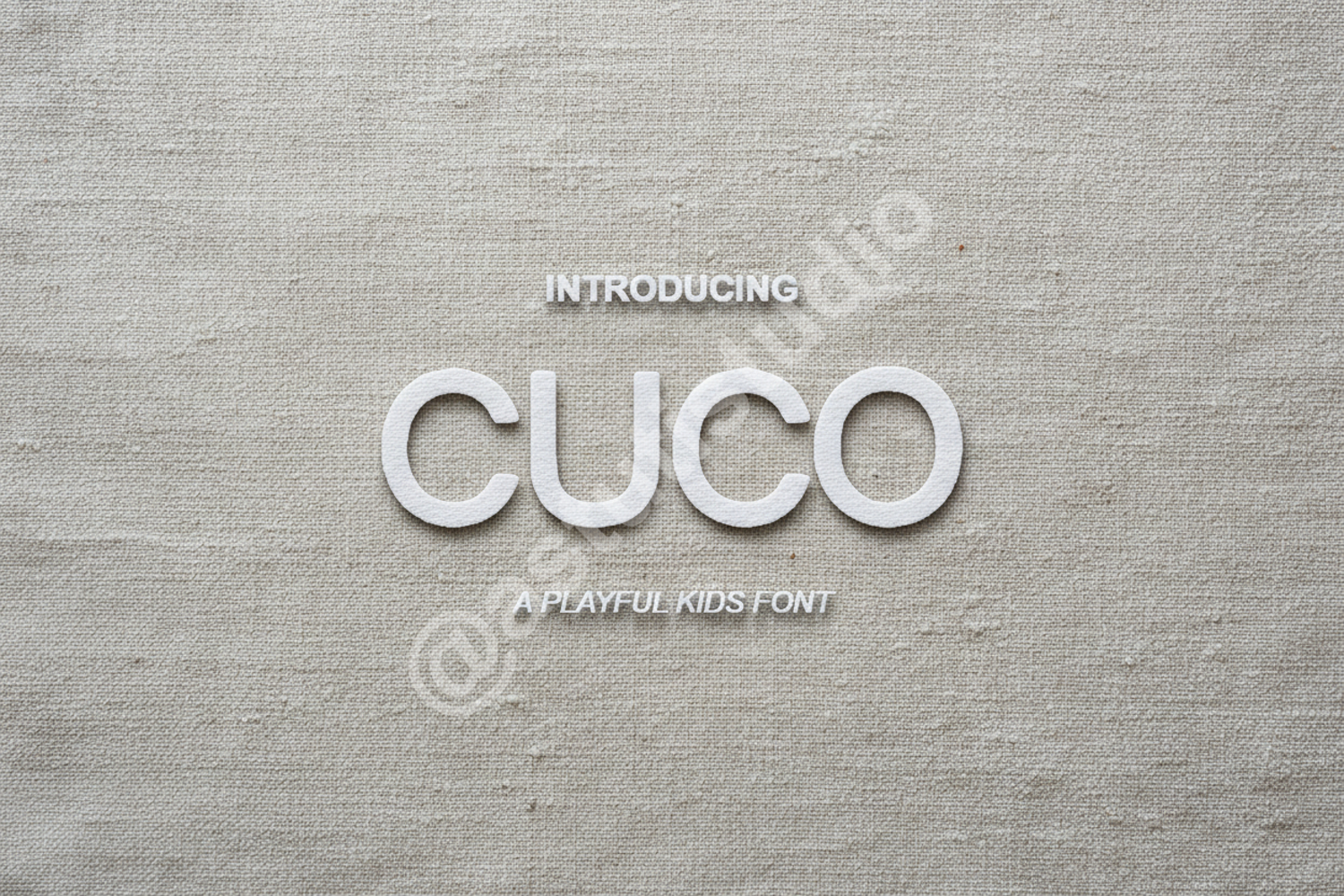
Cuco - A Sophisticated & Modern Geometric Sans Serif
Cuco
Elevate your design projects with Cuco, a premium geometric sans serif typeface that seamlessly blends modern sophistication with exceptional clarity. Crafted with balanced proportions and clean lines, Cuco is designed to provide a professional and minimalist aesthetic that stands out in any creative medium. Whether you are building a brand from the ground up or refining a high-end publication, this font offers the versatility required for top-tier design work.
- Branding and Identity: Create impactful logos and cohesive brand guidelines.
- Editorial Design: Perfect for sharp headlines and highly readable body text in magazines.
- Social Media: Enhance your digital presence with a clean, contemporary look.
- Wedding Stationery: Add a modern, elegant touch to invitations and event programs.
- Product Packaging: Ensure labels and boxes convey a premium, high-quality feel.